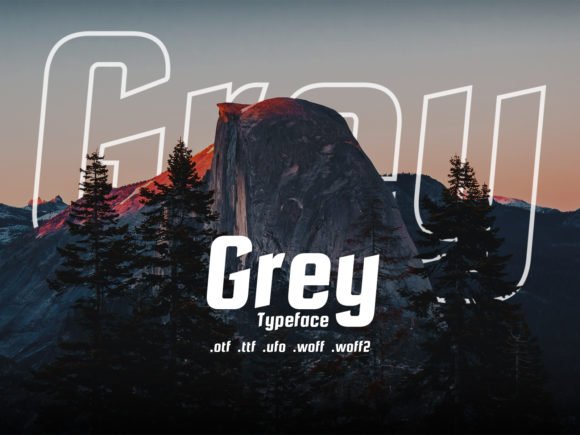
Unlocking the Power of Grey Font: Elevate Your Design Game
Imagine you’re brainstorming a new project, and you’re stuck on the perfect font to capture the essence of your brand. You’ve scrolled through countless options, but none seem to stand out. That’s when you stumble upon Grey Font – a modern sans serif typeface that’s about to change the game. This sleek and sophisticated font is designed to make a statement, perfect for grabbing attention in headlines, branding, and logotypes.
As a designer, you understand the importance of having the right tools at your disposal. Grey Font is a valuable addition to your arsenal, offering endless possibilities for creating eye-catching logos, promotional content, and marketing graphics. With Grey Font, you’ll be able to breathe life into your designs and leave a lasting impression on your audience.
- Unique Character Set: Features a unique character set, including a wide range of symbols, ligatures, and alternates, allowing for creative and expressive typography.
- Font Weight: Available in 8 font weights, ranging from Light to Black, providing flexibility for designers to create a wide range of visual effects.
Designer Review: Grey Font
Grey Font is a clean and simple sans-serif typeface that gets the job done. ✨ The subtle nuances in its letterforms make it a great choice for everyday use, from body text to headings. I appreciate how it maintains readability even at small font sizes.
One of the standout features of Grey Font is its flexibility. ✨ It works well in both digital and print contexts, and its versatility allows it to adapt to various design styles.
While Grey Font is a solid choice, there are some limitations to consider. ⚠️ The font lacks a strong personality, which may make it less memorable than other typefaces. Additionally, it may not be the best choice for projects that require a bold or dramatic statement.
- Limited expressiveness
- May not be suitable for high-impact designs
Grey Font is a dependable and efficient typeface that serves its purpose well. While it may not be the most exciting or attention-grabbing choice, it is a solid addition to any designer’s toolkit. I would recommend it for projects where a clean and simple aesthetic is desired.